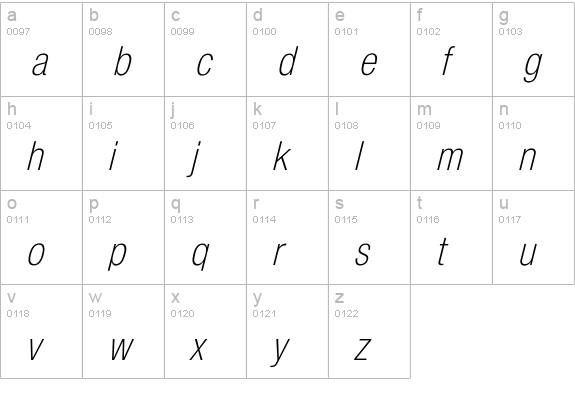
Icolnova Light is a refined, elegant variant in the Icolnova typeface family \xE2\x80\x94 well suited to elegant body text, refined sub-headings, and luxury branding.
Introducing Icolnova Light, a stunningly elegant font that will illuminate your designs with its refined simplicity. This font exudes a sense of sophistication and grace, making it perfect for adding a touch of class to any project. Icolnova Light boasts a harmonious balance between delicate curves and clean lines, resulting in a typeface that is both visually pleasing and easy to read. Its slender letterforms effortlessly capture attention while maintaining a sense of subtlety, making it ideal for headlines, logos, and branding materials. But what truly sets Icolnova Light apart is its accessibility. This remarkable font is freely available to download at FontsMarket.com, allowing designers and creatives of all backgrounds to access its beauty without any barriers. Whether you're a professional designer or a hobbyist, this font is at your disposal, ready to elevate your work to new heights. With Icolnova Light, the possibilities are endless. From elegant wedding invitations to sleek corporate presentations, this font will lend a touch of sophistication to any project. Its versatility and timeless appeal make it a valuable asset in any designer's toolkit. So why wait? Experience the beauty of Icolnova Light today. Download this remarkable font for free at FontsMarket.com and unlock a world of creativity at your fingertips. Let Icolnova Light illuminate your designs and make a lasting impression on your audience.